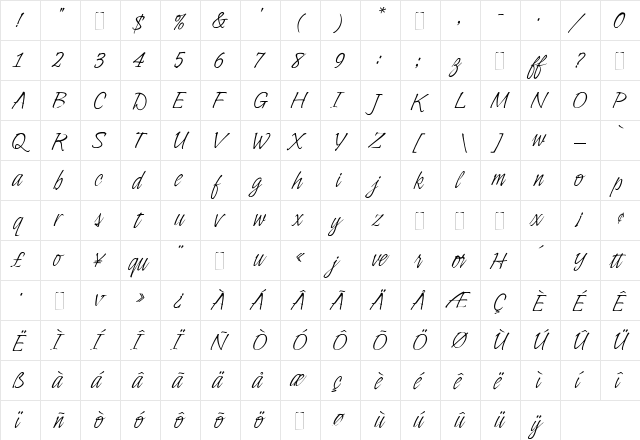
Indy Italic Regular
Design Context for Indy Italic Typeface
Indy Italic offers clean, dependable letterforms without strong stylistic allegiance, making it a practical choice for designers who need flexibility. The slanted form adds forward momentum and visual energy.